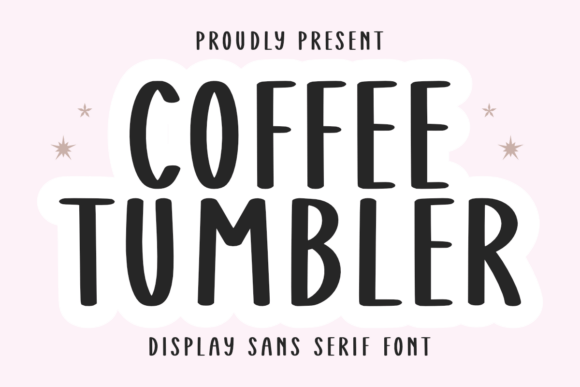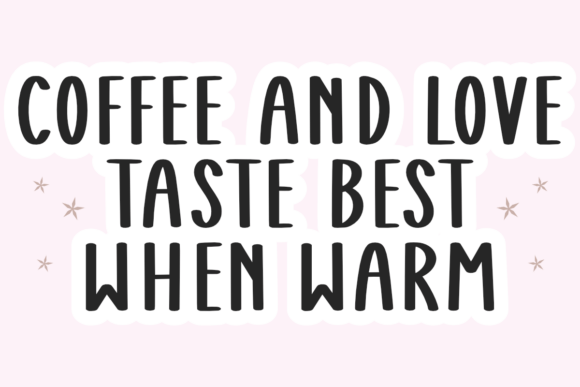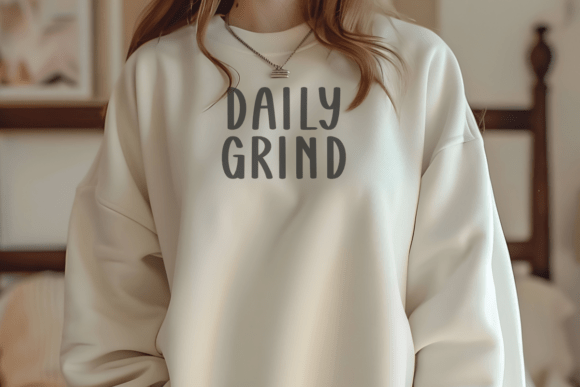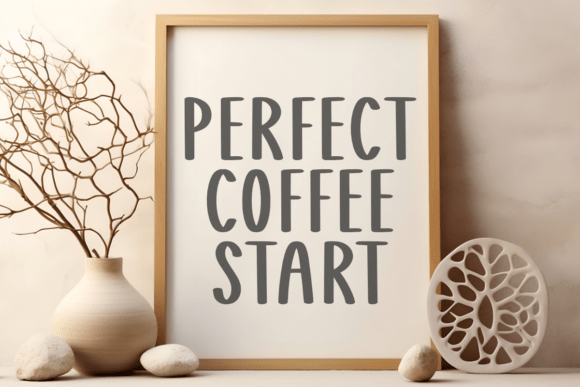
Coffee Tumbler Font
About the Coffee Tumbler Font
Add a touch of class to your work with the Coffee Tumbler Font, a truly exceptional typeface. Coffee Tumbler is a clean yet playful display sans serif font designed for cozy branding and modern designs. Its tall, slender characters evoke a hand-drawn feel that works beautifully on product packaging, lifestyle blog titles, and everyday print materials.
Coffee Tumbler excels in headlines, short impactful phrases, and logo design, lending a friendly, approachable feel to branding projects. Its playful nature makes it ideal for coffee shops, bakeries, or lifestyle brands targeting a younger demographic. However, its limited x-height makes it less suitable for body text or lengthy paragraphs. Avoid using it in UI contexts requiring high readability.
Pairing Coffee Tumbler with a clean sans-serif like Montserrat or a warmer serif such as Playfair Display creates a visually appealing contrast. For a more playful feel, consider pairing it with a handwritten script font, but ensure legibility remains a priority. The key is to balance Coffee Tumbler’s informal charm with a more structured typeface.
Its overall personality is best described as friendly and approachable yet modern and slightly quirky, making it a versatile choice for projects needing a touch of casual sophistication.
Coffee Tumbler Font Usage Examples
Coffee Tumbler Font Example